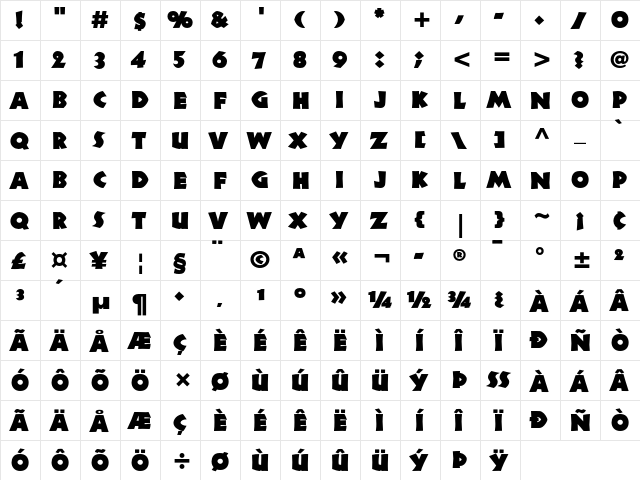
Neuland Black Font Preview
Neuland Black
Design Context for Neuland Typeface
Neuland offers clean, dependable letterforms without strong stylistic allegiance, making it a practical choice for designers who need flexibility.
Pro Tip: Use Neuland in both headline and body roles to test its range before committing to a single application.